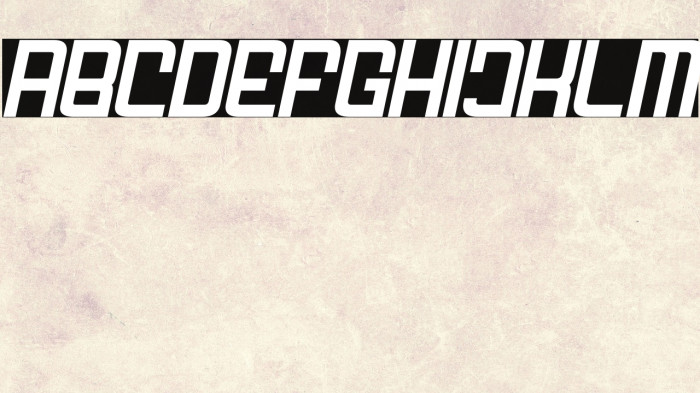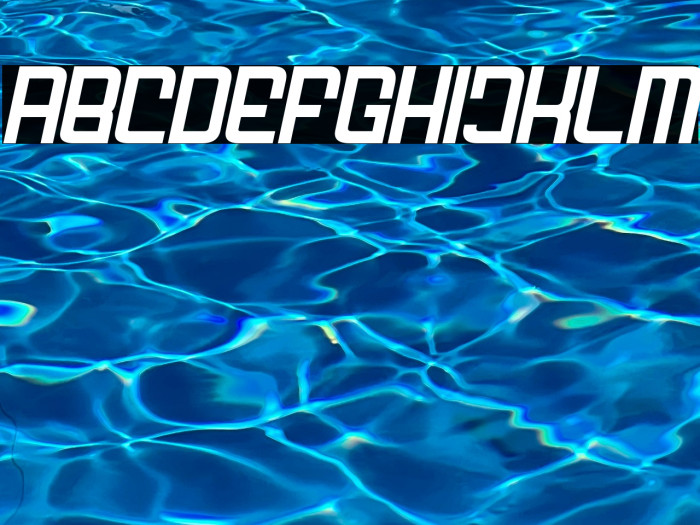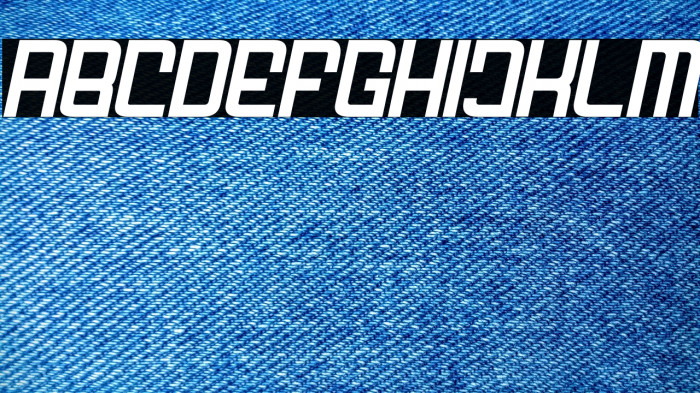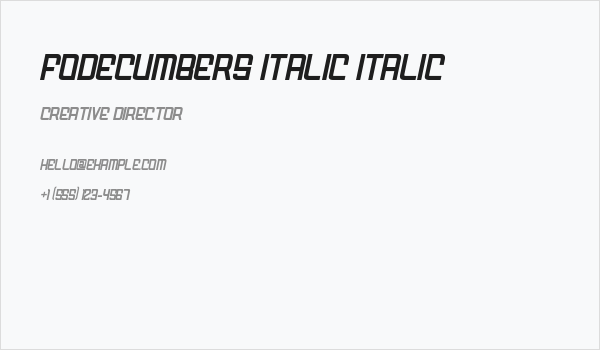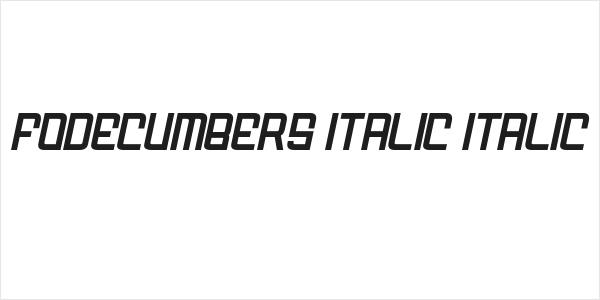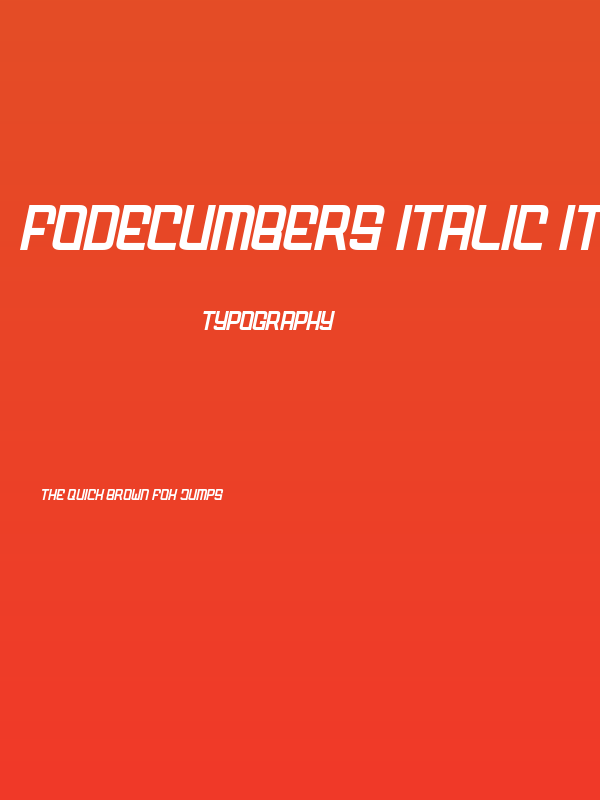
FODECUMBERS ITALIC Italic Font
FODECUMBERS ITALIC Italic Description
This font exhibits a modern and dynamic style with a distinct italic slant, giving it a sense of movement and energy. The characters are bold and angular, featuring sharp edges and a futuristic aesthetic. The uppercase and lowercase letters maintain a consistent design, with the uppercase being slightly more elongated. The numerals are equally bold and follow the same angular design, ensuring readability and uniformity across all characters. Special characters are designed to match the overall style, making them suitable for a variety of uses.
| Proposed Projects | Ideal for sports branding, tech-related projects, futuristic designs, and dynamic advertising campaigns. |